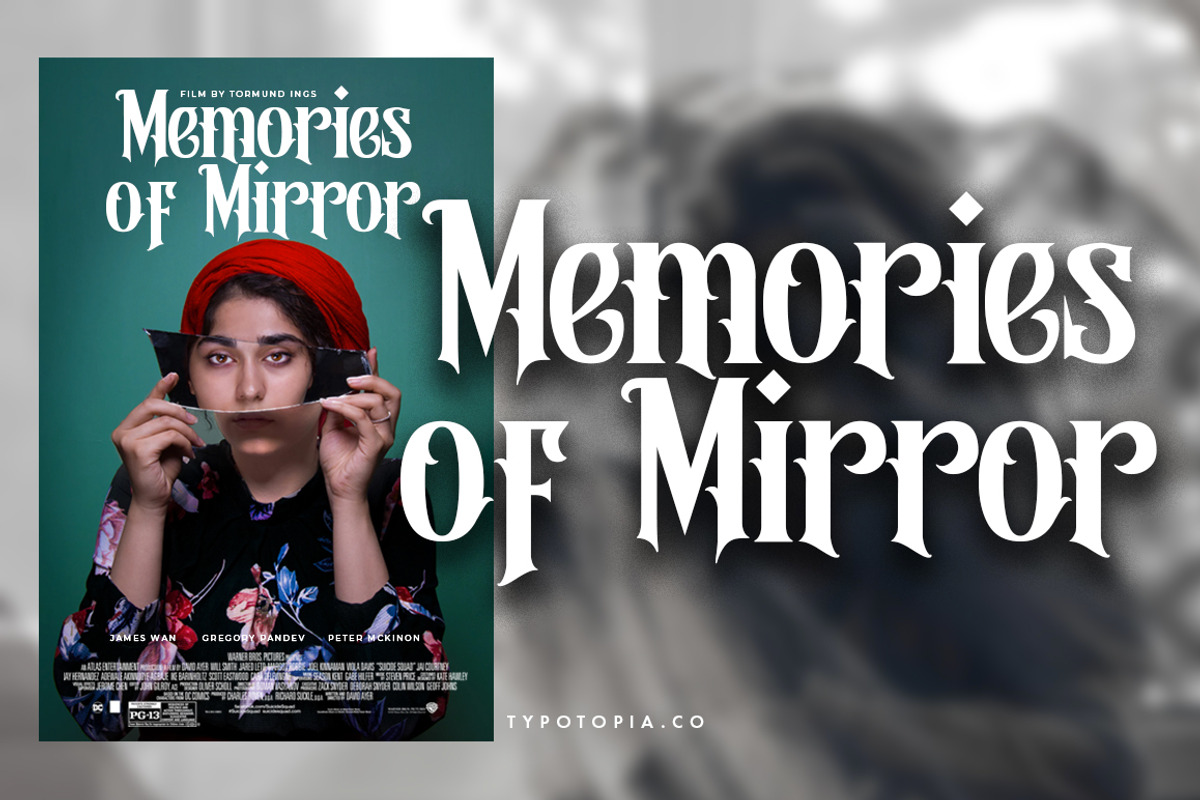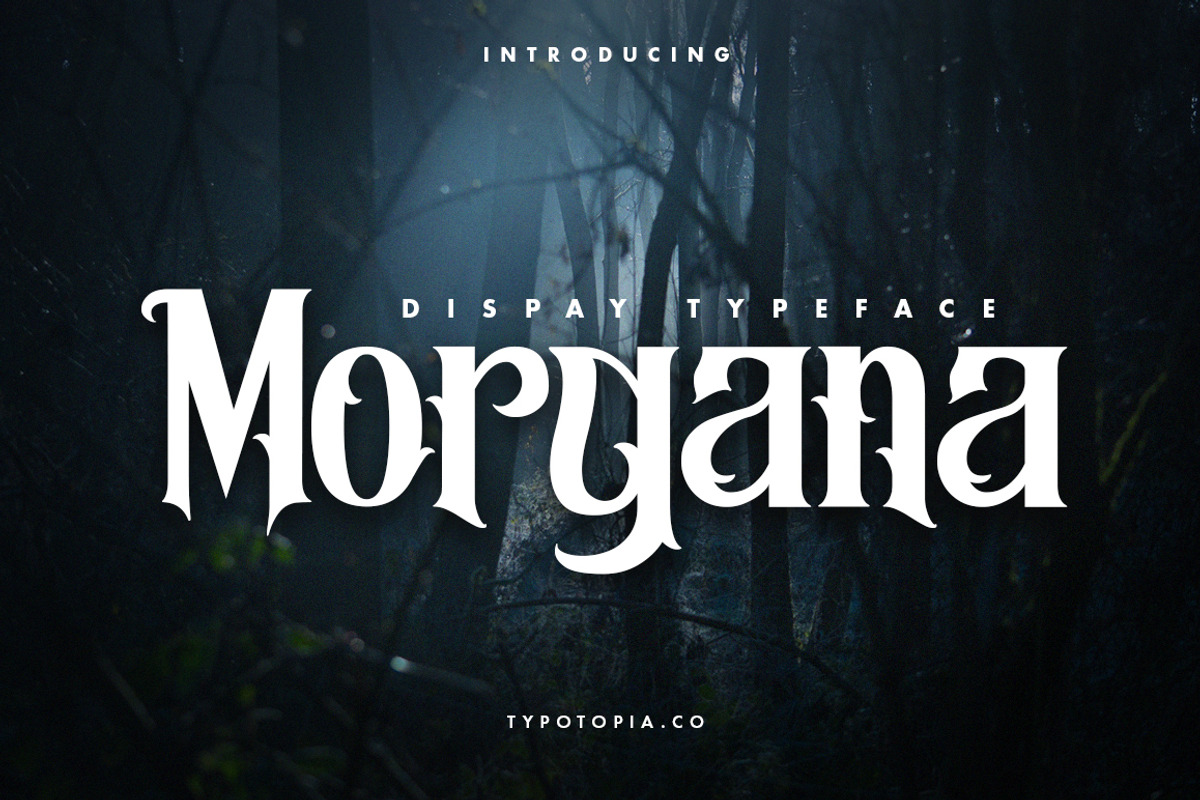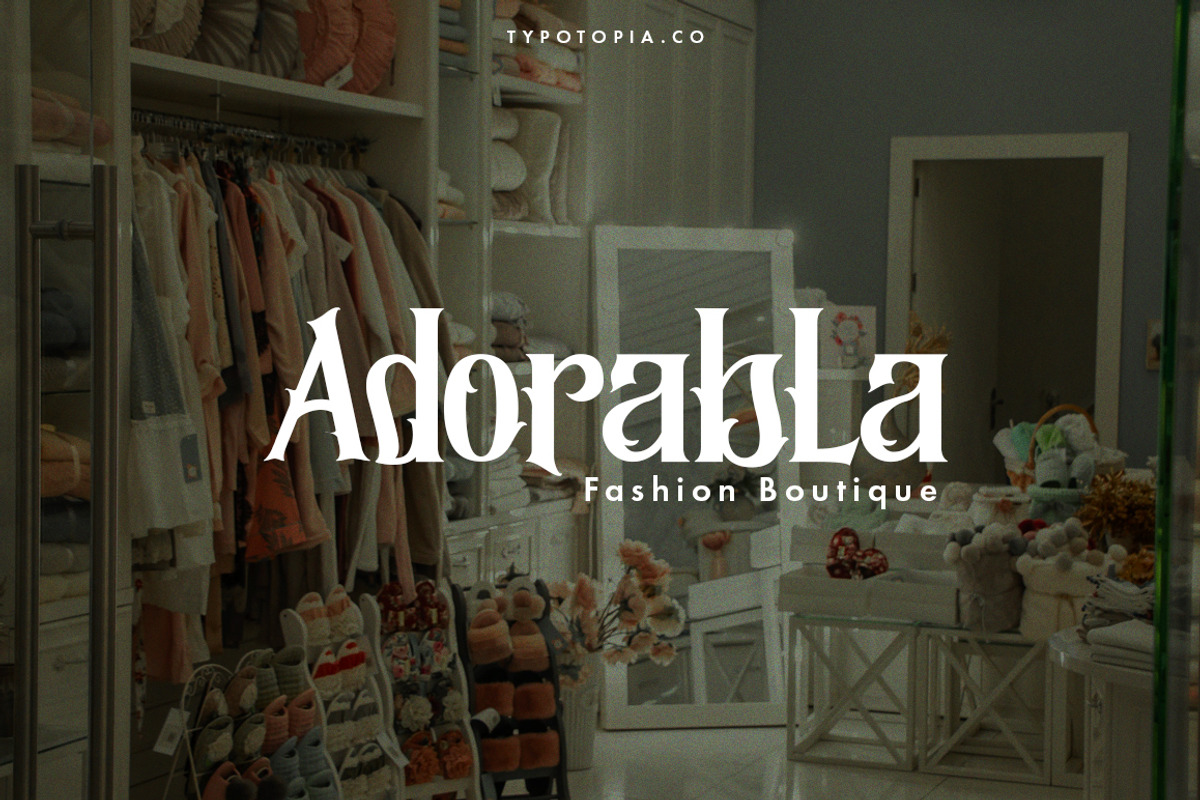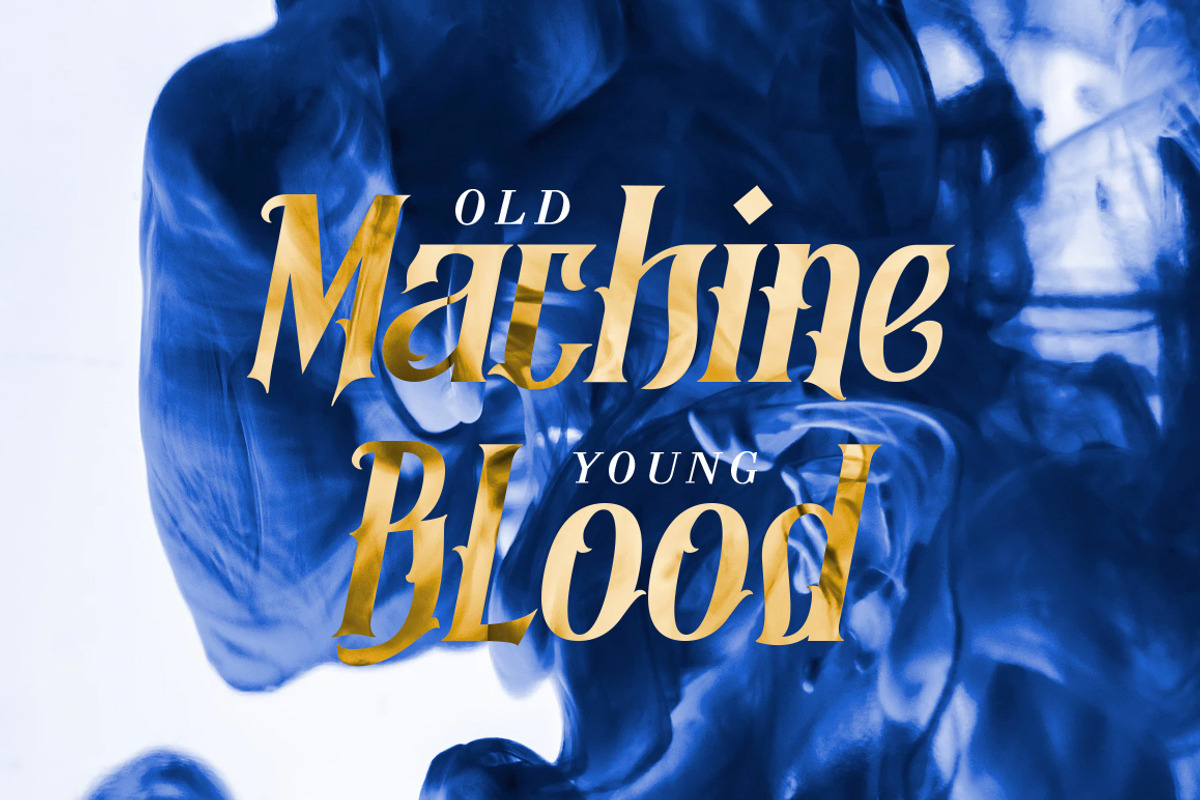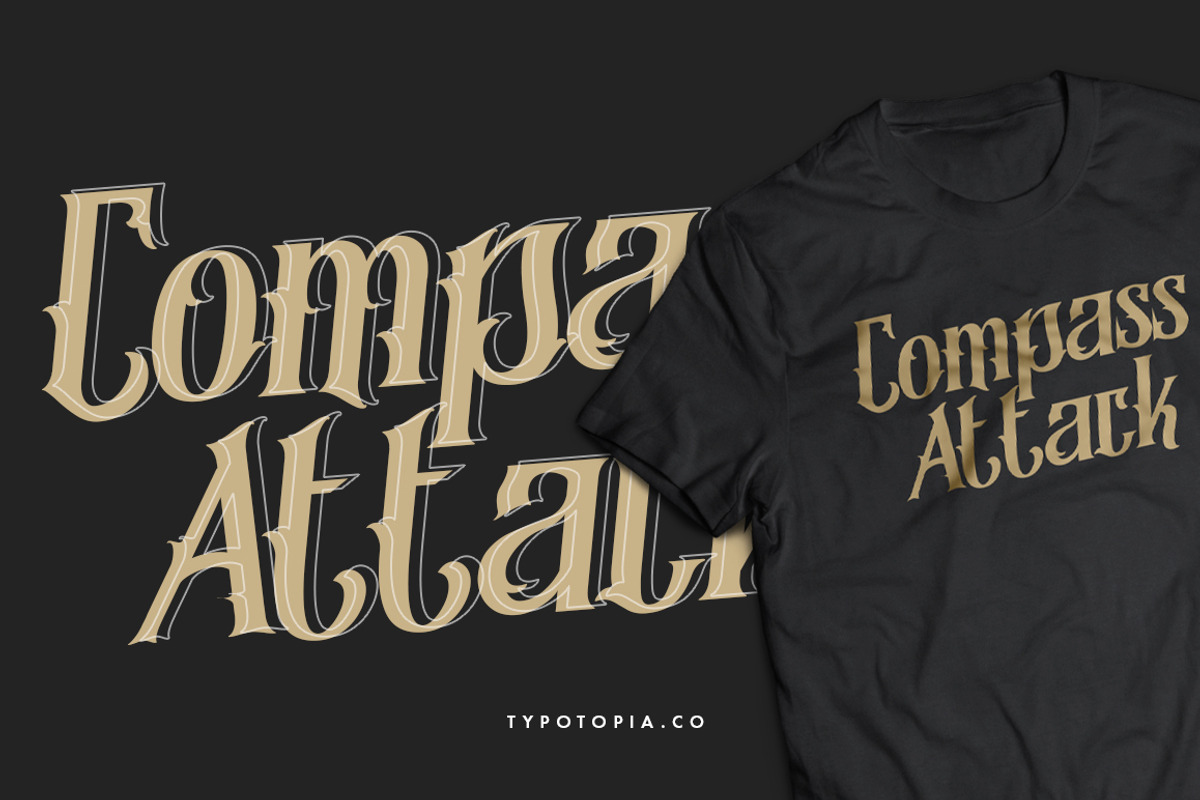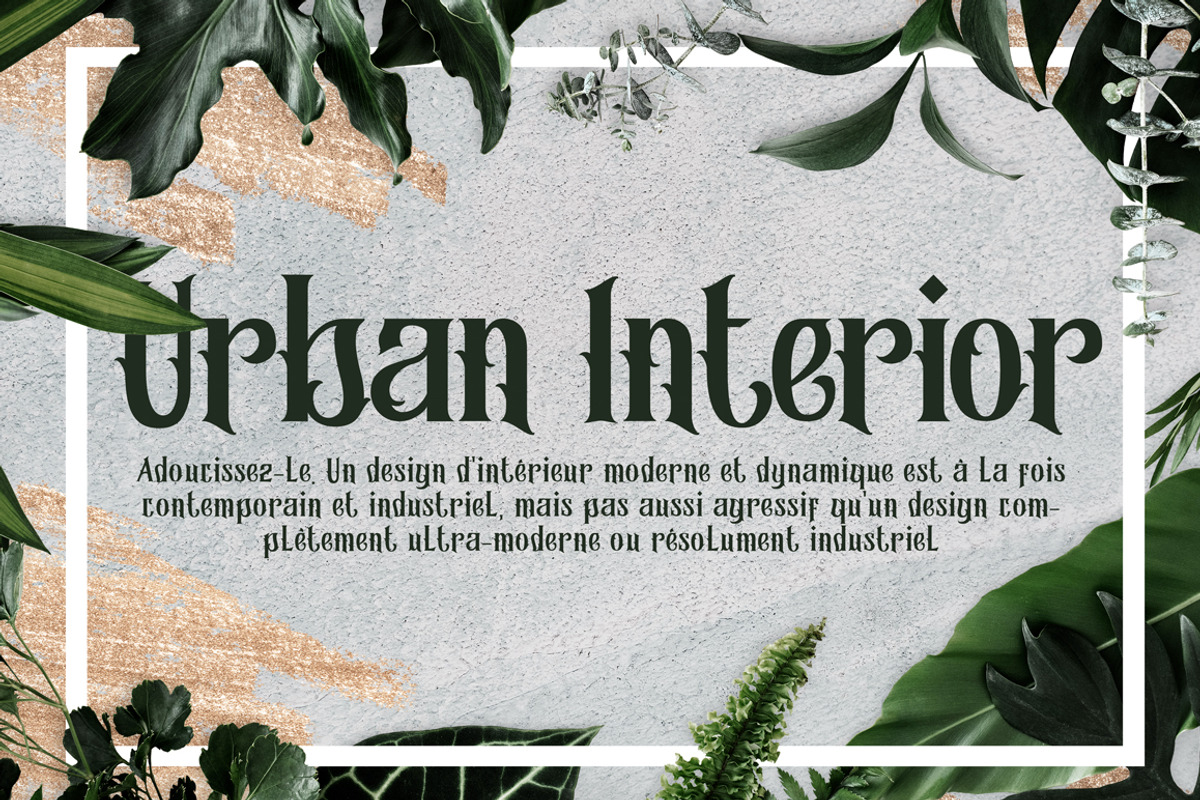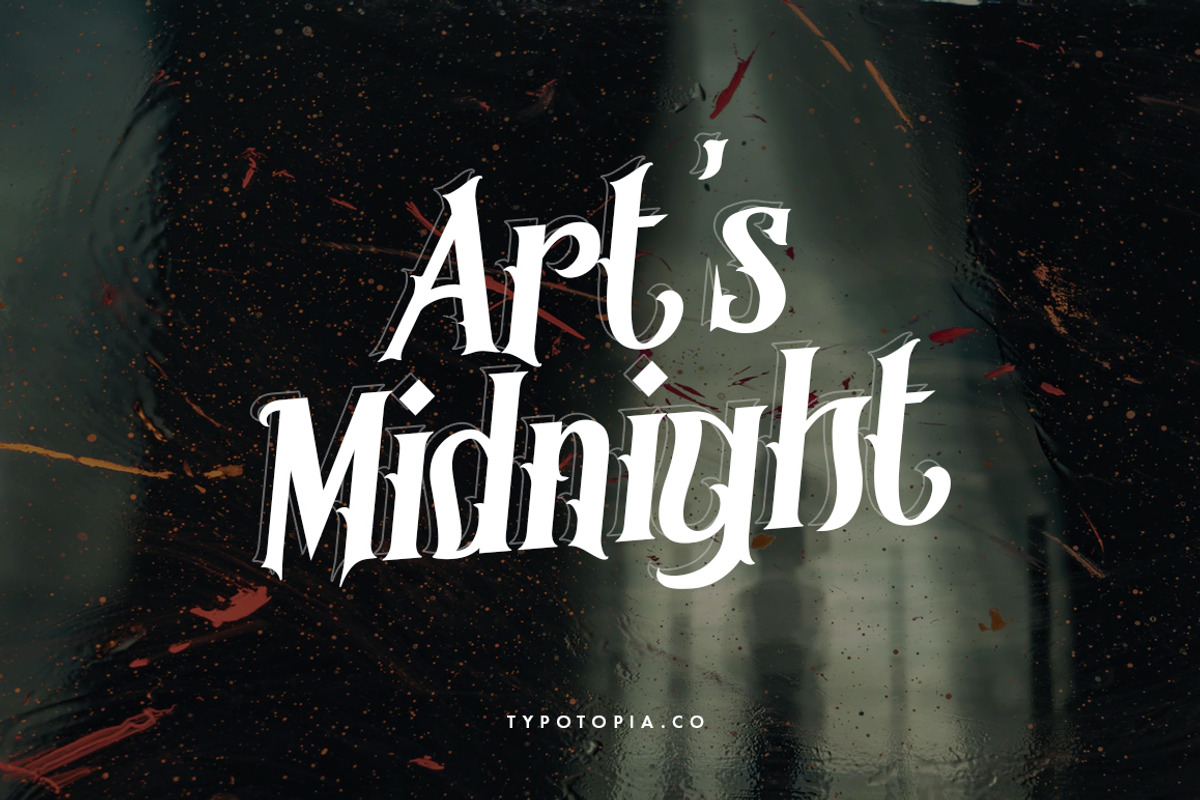
Morgana - Display Font
Introducing, Morgana, a lovely Display Font that bring Natural feel. this Font that inspired by lettering from the good old past, but it still has a strong modern appearance.
Morgana is the great choice for several purpose, it suitable for for headline, logotype, apparel, invitation, branding, packaging, advertising etc.
Morgana - Display Font by edukka fits naturally into Branding, posters, packaging, typography.